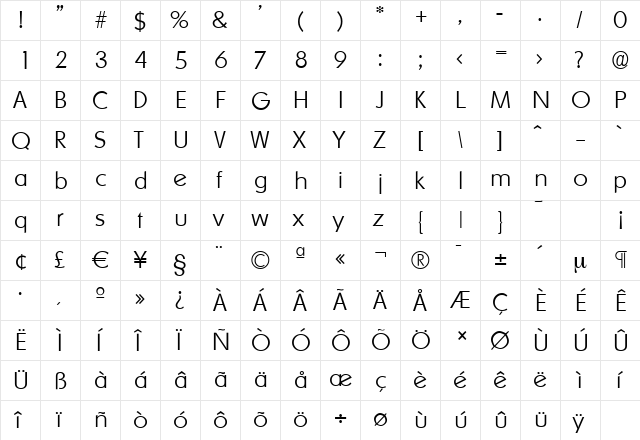
OrnitonsSerial-Xlight Regular
Design Context for OrnitonsSerial-Xlight Typeface
OrnitonsSerial-Xlight is a composed and adaptable typeface that performs quietly and consistently across a wide range of design contexts. Its slender proportions lend an understated elegance to any composition.